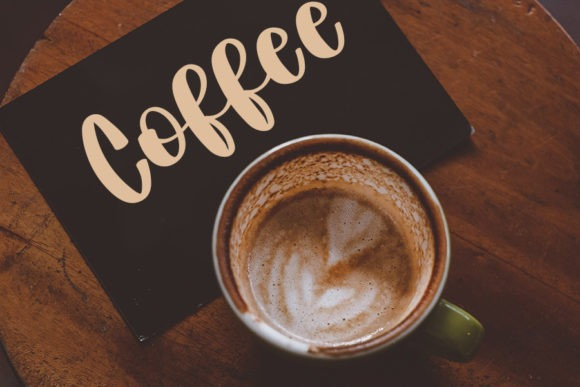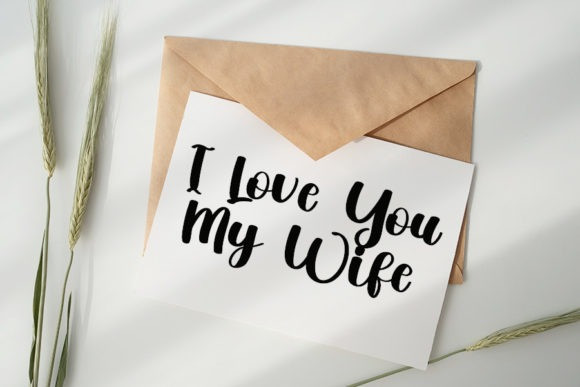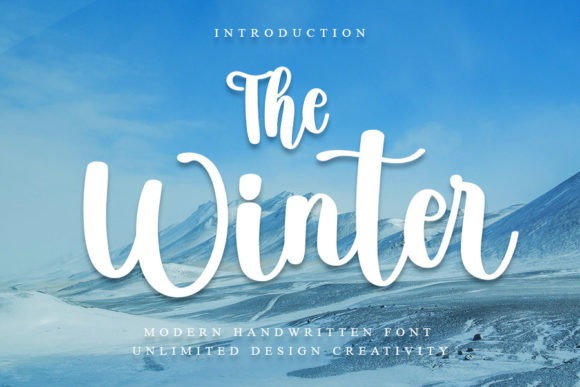
The Winter Font
The Winter Script Font is a lovely script font featuring charming, playful characters that seem to dance along the baseline. Add this font to your most creative ideas, and notice how it makes them stand out!